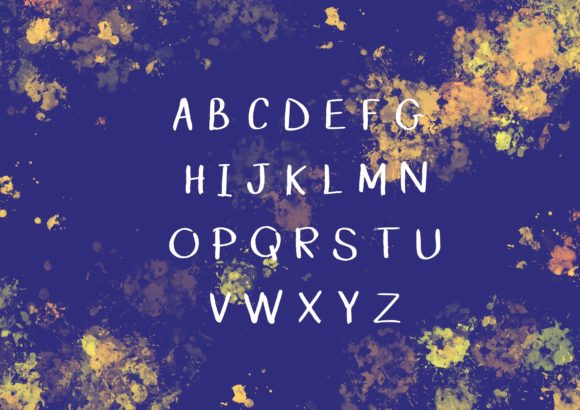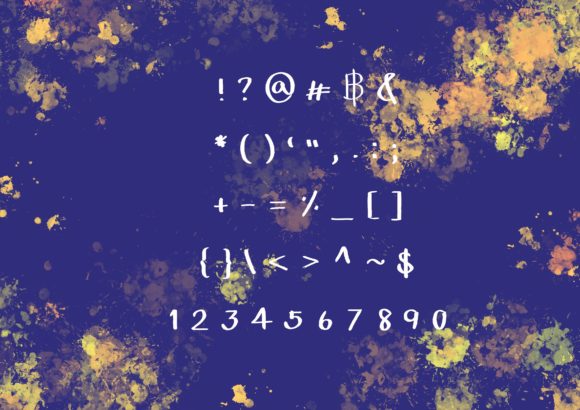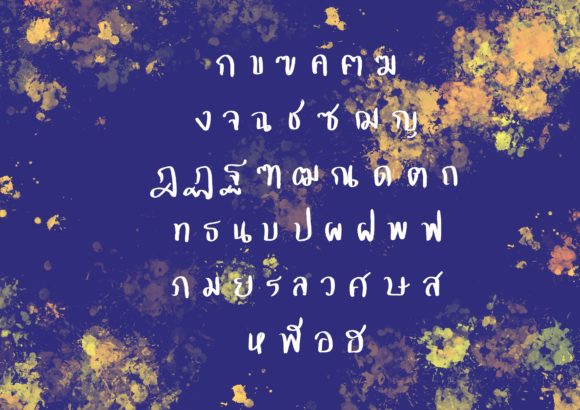
About Little Flick Font
Introducing Little Flick, a charming and simple handwritten font that brings a playful and authentic touch to your designs. With its casual and friendly style, this font is perfect for creating chalkboard quotes, teaching materials, and various other design projects.
Little Flick captures the essence of handwritten lettering, giving your designs a personal and realistic feel. The imperfect strokes and varied letterforms add character and warmth to your text, making it feel like it was written by hand. Whether you’re creating educational materials, inspirational quotes, or playful signage, Little Flick will add a touch of authenticity and charm.
The simplicity of Little Flick makes it highly versatile and suitable for a wide range of design applications. It is legible and easy to read, ensuring that your message gets across effectively. Whether you’re designing classroom materials, greeting cards, or social media graphics, Little Flick will bring a delightful and approachable vibe to your designs.
In summary, Little Flick is a cute and simple handwritten font that adds a personal and realistic feel to your designs. It is versatile and suitable for various applications, including chalkboard quotes, teaching materials, and more. With its authentic and playful style, Little Flick brings a charming and approachable vibe to your designs, making them stand out with a touch of handwritten character.